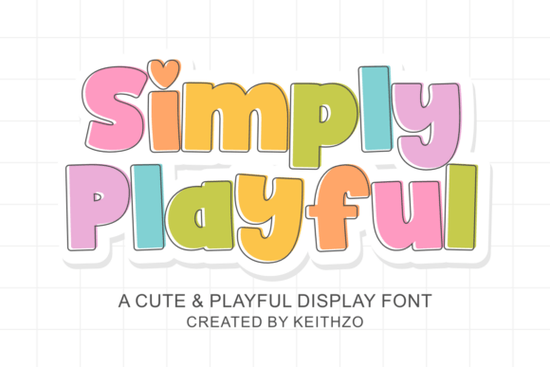
If you're looking for a display font that brings warmth, personality, and a playful vibe to your projects, Simply Playful Font is a great choice. It’s perfect for anyone who wants to add a friendly, handcrafted feel to designs whether you’re making stickers, T-shirts, digital school materials, or social media graphics.
What makes Simply Playful stand out?
Unlike stiff, mechanical fonts, Simply Playful feels handmade. Its rounded shapes and soft edges give it a cozy, inviting presence. The letters have a slightly bouncy rhythm, like they’re dancing on the page. You’ll notice small details like the heart-shaped dots on lowercase i and j that add a sweet, whimsical touch without being overwhelming.
The font’s bold weight ensures it grabs attention, even from a distance. That makes it ideal for headlines, logos, or any design where you want your message to pop. Whether you’re designing a poster for a kids’ event or branding a small business with a cheerful tone, this font helps your work feel approachable and fun.
How well does it work with cutting machines?
If you use Cricut, Silhouette, or similar die-cutting tools, you’ll appreciate how clean and smooth the cut paths are. The thick, consistent lines mean fewer issues when cutting vinyl, paper, or fabric. No jagged edges or messy corners just crisp, reliable results every time. This makes it a favorite among crafters and print-on-demand sellers who need efficiency and precision.
Where can you use Simply Playful?
Its retro groovy style fits perfectly with current trends in design. Think vintage-inspired posters, playful packaging, birthday invitations, classroom resources, and even themed merchandise. The font works especially well when paired with simple color schemes pastels, bright primary colors, or muted tones to keep the focus on its character.
- Stickers & decals – Great for journals, water bottles, or gift tags
- T-shirt designs – Ideal for brands with a fun, youthful identity
- Digital learning tools – Makes worksheets and flashcards more engaging for kids
- Social media graphics – Perfect for posts about events, promotions, or personal branding
- Event signage – Adds charm to weddings, baby showers, or community fairs
You’ll also find that it pairs beautifully with other fonts in your collection. For example, try combining it with a clean sans-serif for balance, or layer it over textured backgrounds for added depth.
How does it compare to similar fonts?
While there are many playful display fonts out there, Simply Playful stands out for its consistency and craftsmanship. Compared to something like Gray Club, it’s more rounded and less angular. It shares some energy with Chunky Summer, but with a softer, more delicate edge. If you like bold, expressive typefaces, Raither might be another option but Simply Playful offers a gentler, more inclusive feel.
For those drawn to vintage aesthetics, Vintage Magazine brings a different kind of nostalgia, often with serif details and a more formal look. Simply Playful leans into a modern interpretation of retro fun, making it feel fresh yet familiar.
Final thoughts: Is it right for your next project?
If you value clarity, charm, and ease of use in your typography, this font delivers. It’s not just about looks it’s practical too. The clean cut paths, strong legibility at various sizes, and compatibility with popular crafting tools make it a smart pick for both hobbyists and small business owners.
Whether you’re creating something for yourself or selling it online, Simply Playful adds a little joy to every design. It doesn’t shout it smiles. And sometimes, that quiet confidence is exactly what your project needs.